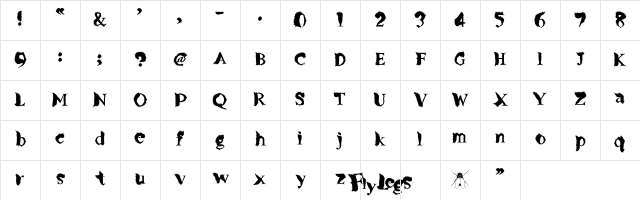
FlyLegs Regular Free Font
FlyLegs Regular
Design Context for FlyLegs
FlyLegs is a composed and adaptable typeface that performs quietly and consistently across a wide range of design contexts.